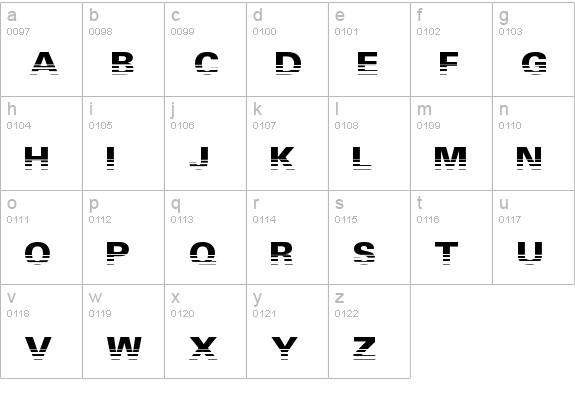
Ventilate AOE Font Details
Ventilate AOE font is a stunning display font that will add a touch of modernity and uniqueness to your designs. With its bold and edgy letterforms, this font is perfect for headlines, posters, logos, and any other project that requires a strong and impactful look. The Ventilate AOE font stands out with its intricate details and sharp angles, creating a sense of dynamism and energy. Its carefully crafted letterforms have a contemporary feel, making it suitable for a wide range of design styles, from futuristic to urban. One of the best things about Ventilate AOE font is that it is freely available to download at FontsMarket.com. This means that you can easily incorporate this eye-catching font into your projects without having to worry about any additional costs. Whether you are a professional designer or a hobbyist, you can take advantage of this font to elevate your designs and make them truly stand out. With Ventilate AOE font, you have full control over how you want your text to appear. Its versatile nature allows you to play around with different sizes, weights, and styles to create the perfect visual impact. Whether you want to make a bold statement or add a subtle touch of sophistication, this font has got you covered. So why wait? Take advantage of the freely available Ventilate AOE font and unleash your creativity today. Download it from FontsMarket.com and see how it transforms your designs into works of art.